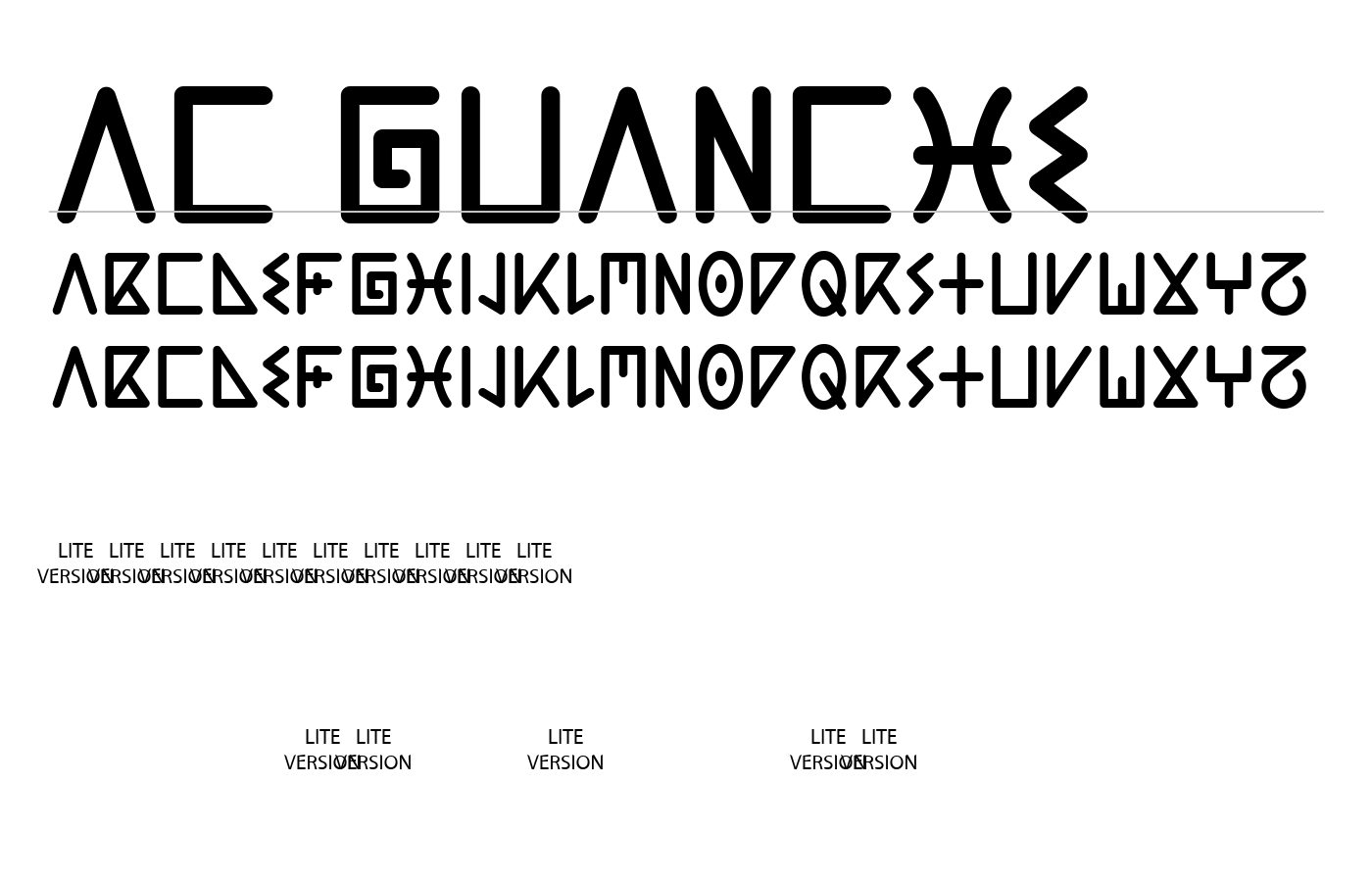
AC Guanche is a distinctive sans serif font with a playful, geometric style that blends modern simplicity with an exotic, tribal-inspired feel. Its bold, evenly weighted strokes and unique letterforms with sharp angles and unusual shapes create a strong visual impact, making it ideal for eye-catching logos, posters, and branding that seek a contemporary yet cultural vibe. This font works best where creative expression and originality are key, lending itself well to fashion, entertainment, and artistic projects.
AC Guanche Font
About AC Guanche Font
| Font family | AC Guanche Font |
| Designer | Adrian Candela |